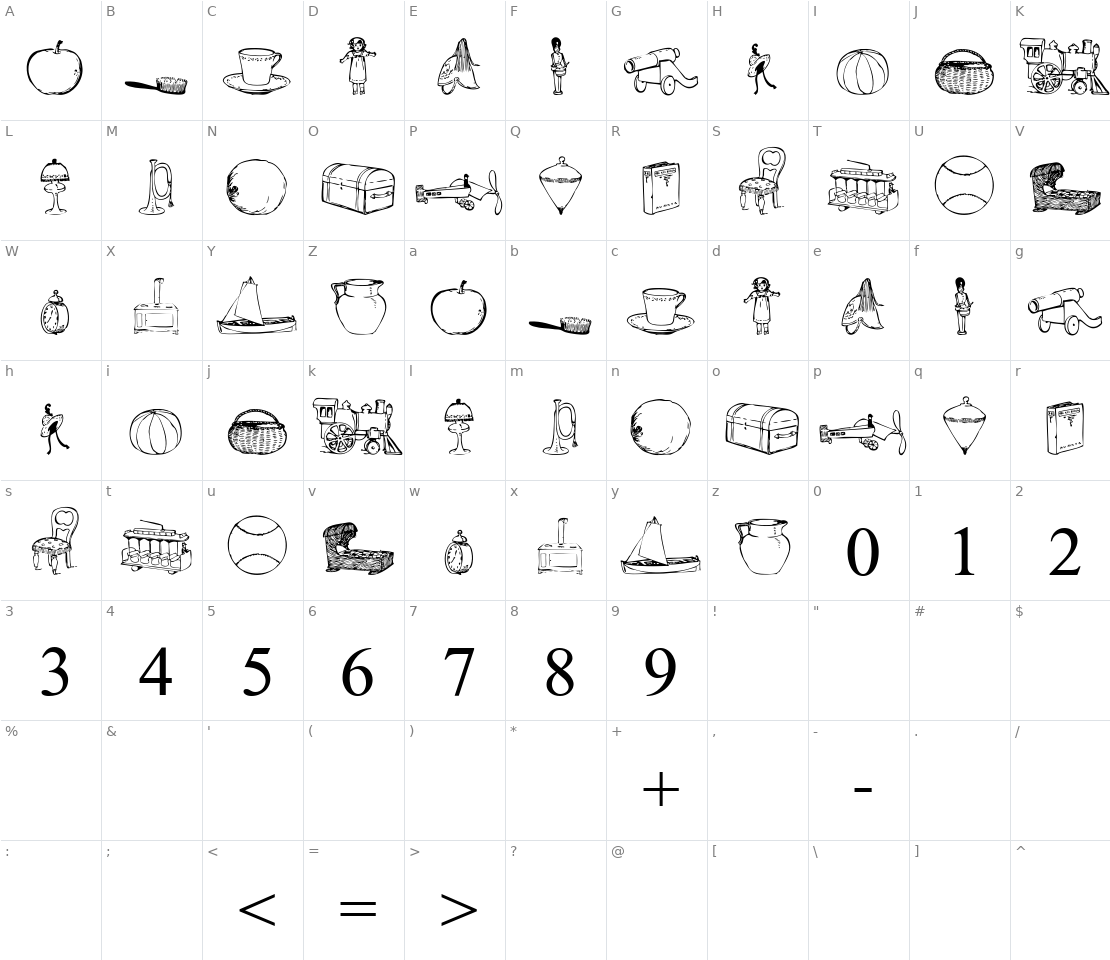
Textbook Math
Textbook Math is a decorative dingbat font from Centric Studios filled with hand-drawn, line-art illustrations of the kind you'd find in mid-century educational materials. The set includes vintage-style objects and figures with a charming, slightly rough quality that feels lifted straight from an old school worksheet or science primer. Useful for adding retro illustrative detail to educational projects, infographics, or nostalgic print design.